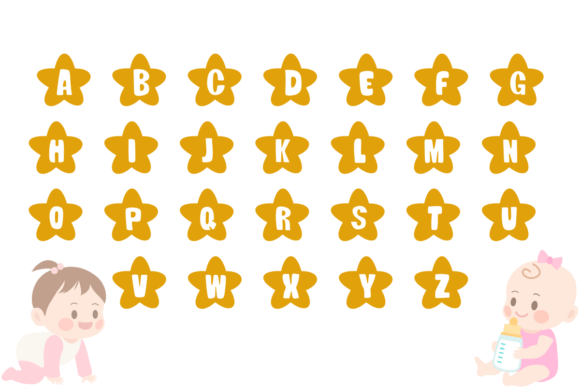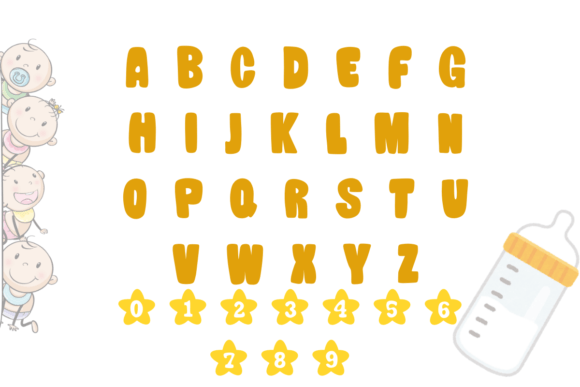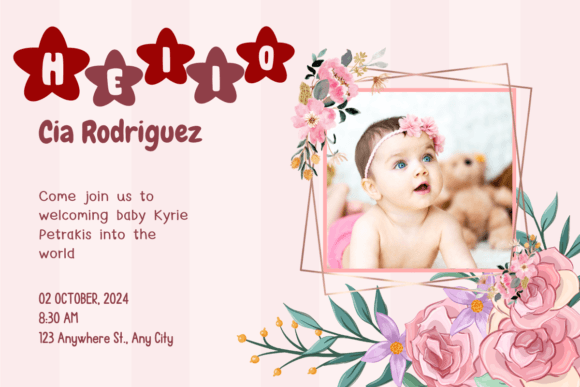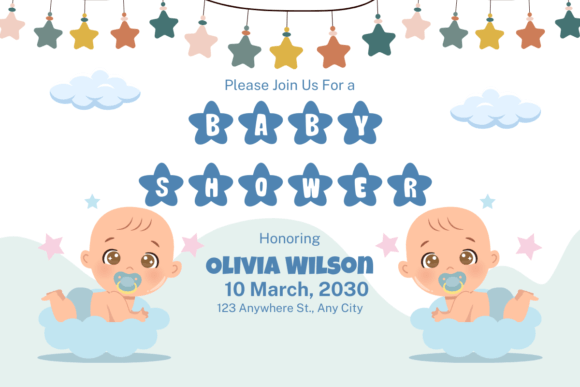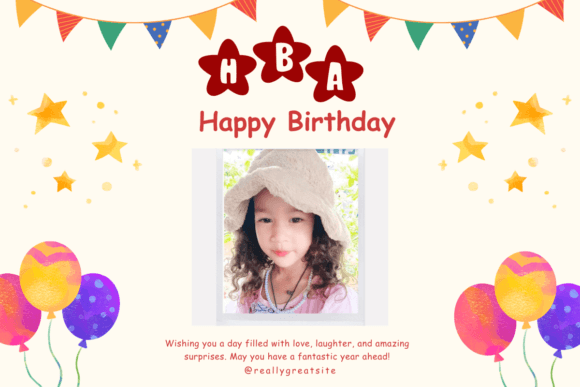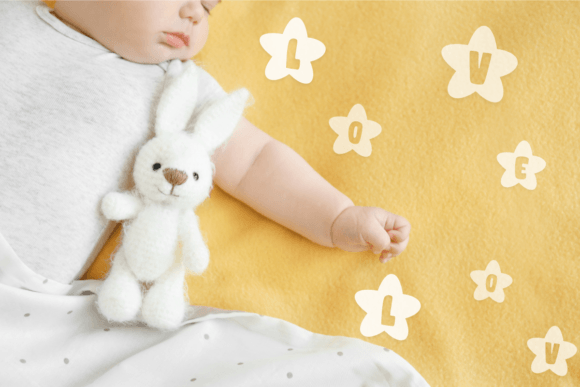
Baby Star Font: Add a Magical Touch to Your Designs
Are you looking for a font that can add a playful and whimsical touch to your designs? Look no further than the Baby Star Font! This adorable font features each letter placed inside a star shape, giving it a fun and decorative look that’s perfect for creating magical and childlike designs.
What is Baby Star Font?
Baby Star Font is a unique and creative font that combines the charm of stars with the elegance of typography. Each letter is carefully crafted to fit inside a star shape, creating a delightful and eye-catching effect. The font is designed to be easy to read and use, making it perfect for a wide range of design projects, from children’s books and party invitations to branding and advertising.
Key Features of Baby Star Font
- Cute and Playful Design: The Baby Star Font features a fun and playful design that’s sure to capture the attention of your audience.
- Star-Shaped Letters: Each letter is placed inside a star shape, adding a touch of magic and whimsy to your designs.
- Easy to Read: Despite its decorative nature, the Baby Star Font is easy to read and use, making it perfect for body text and headlines.
- Versatile: The font is suitable for a wide range of design projects, from children’s designs to adult-oriented projects that require a playful touch.
Uses of Baby Star Font
The Baby Star Font is a versatile font that can be used in a variety of design projects, including:
- Children’s Books and Magazines: Add a playful touch to your children’s books and magazines with the Baby Star Font.
- Party Invitations: Create magical and eye-catching party invitations with the Baby Star Font.
- Branding and Advertising: Use the Baby Star Font to add a touch of whimsy and playfulness to your branding and advertising campaigns.
- Crafting and DIY Projects: The Baby Star Font is perfect for crafters and DIY enthusiasts who want to add a personal touch to their projects.
Tips for Using Baby Star Font
Here are some tips for using the Baby Star Font effectively in your designs:
- Use it Sparingly: While the Baby Star Font is cute and playful, it can be overwhelming if used excessively. Use it sparingly to add a touch of whimsy to your designs.
- Pair it with Other Fonts: Pair the Baby Star Font with other fonts to create a unique and eye-catching effect.
- Experiment with Colors: Experiment with different colors to find the perfect combination that matches your design.